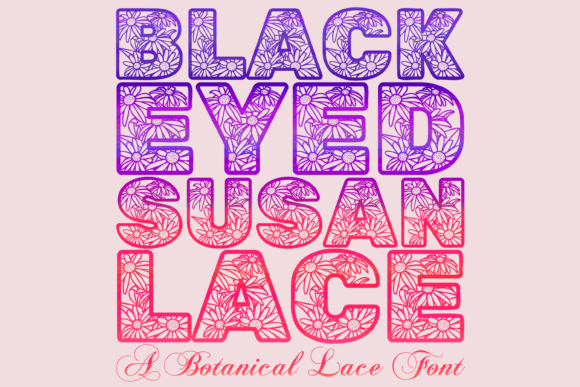
Welcome to the world of Black Eyed Susan Lace - a botanical lace font that will add charm to your creations. Crafted with elegance, this decorative font from WADLEN is ideal for infusing a touch of enchanting allure into your DIY projects and Cricut designs.
Unleash your creativity with Black Eyed Susan Lace's intricate patterns and delicate lacework. This font will captivate your audience with its unique style, making it the perfect choice for personalized gifts, invitations, cards, and more. Its graceful curves and flowing lines will weave a web of beauty into any project, leaving a lasting impression.
Imagine the heartfelt smiles as your loved ones receive cards adorned with heartfelt messages penned in Black Eyed Susan Lace. Create custom designs that reflect your unique personality and style. Let your creativity flourish as you explore the endless possibilities of this captivating font.
Black Eyed Susan Lace is more than just a font; it's an expression of your artistic flair. It's the perfect companion for DIY enthusiasts, crafters, and designers seeking a touch of elegance in their work. Download Black Eyed Susan Lace today and embark on a journey of creativity that will leave you spellbound.